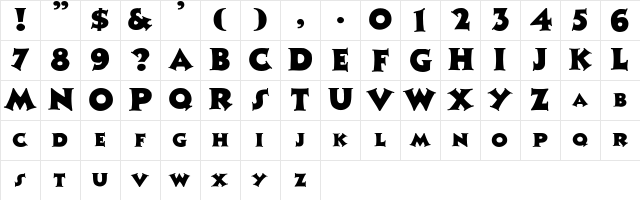
61 Regular Font Preview
61 Regular
Design Context for 61 Typeface
61 is a composed and adaptable typeface that performs quietly and consistently across a wide range of design contexts.